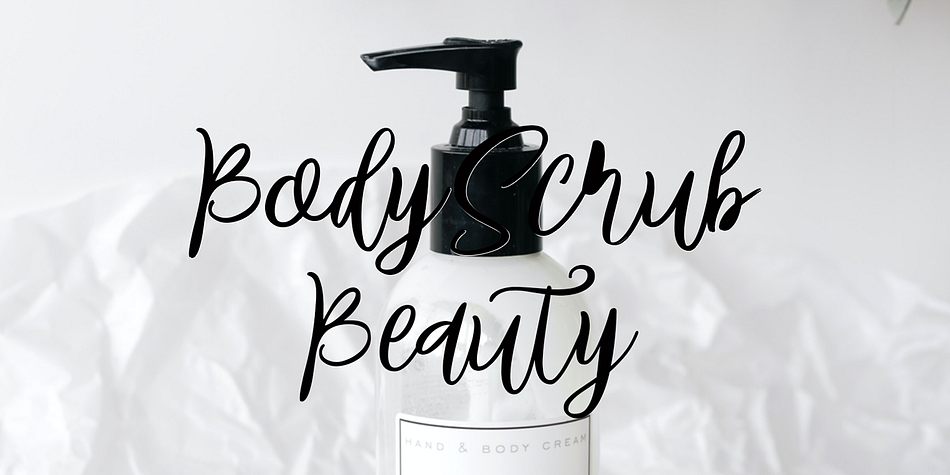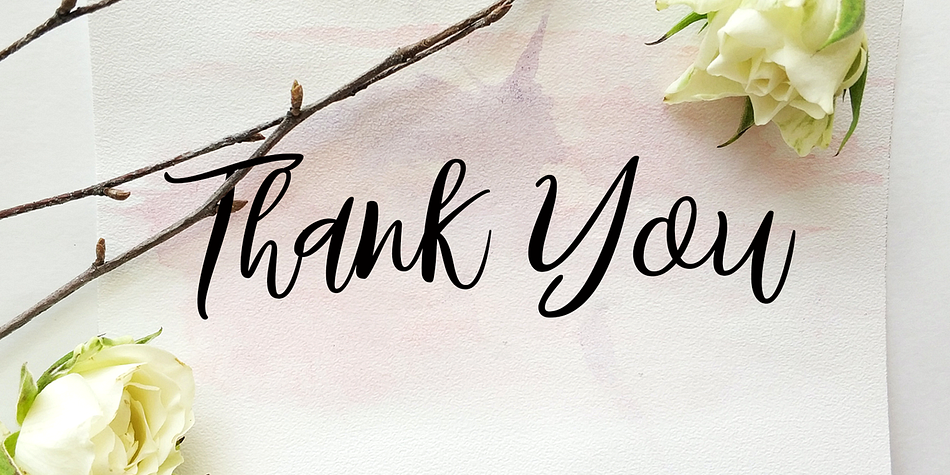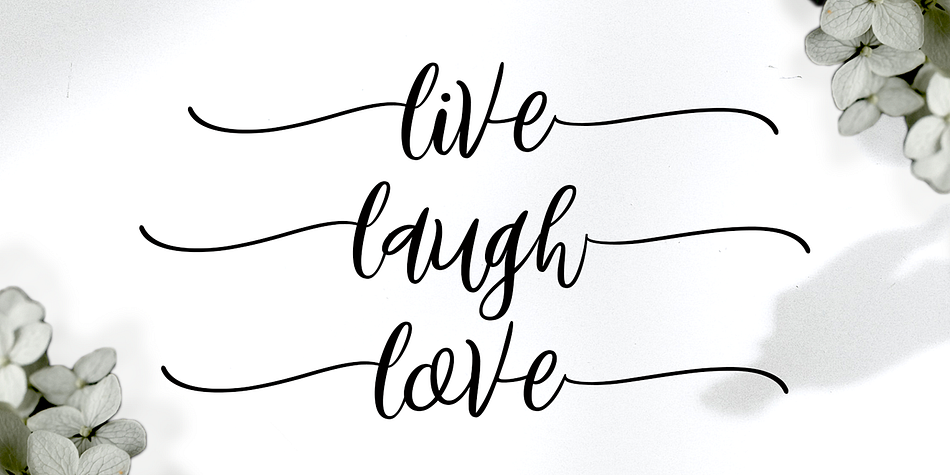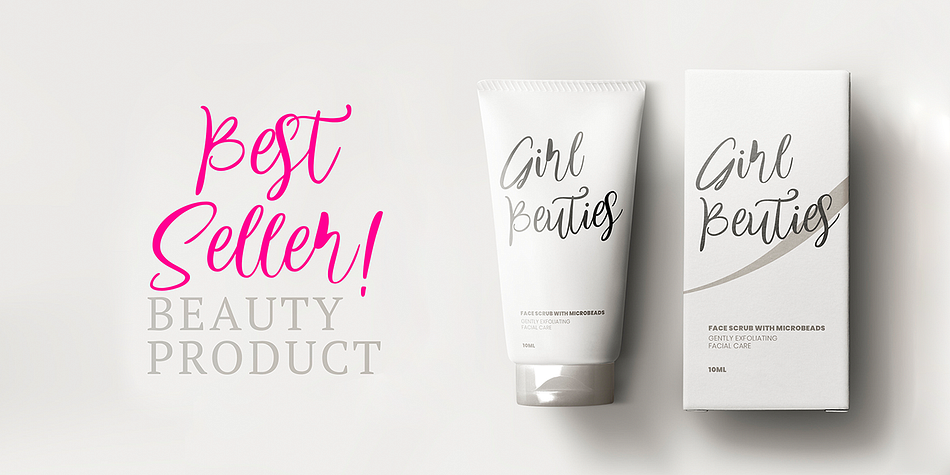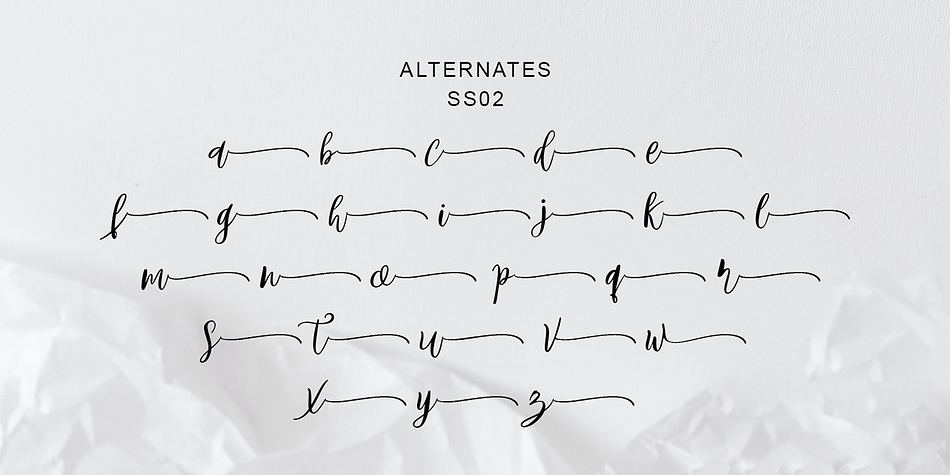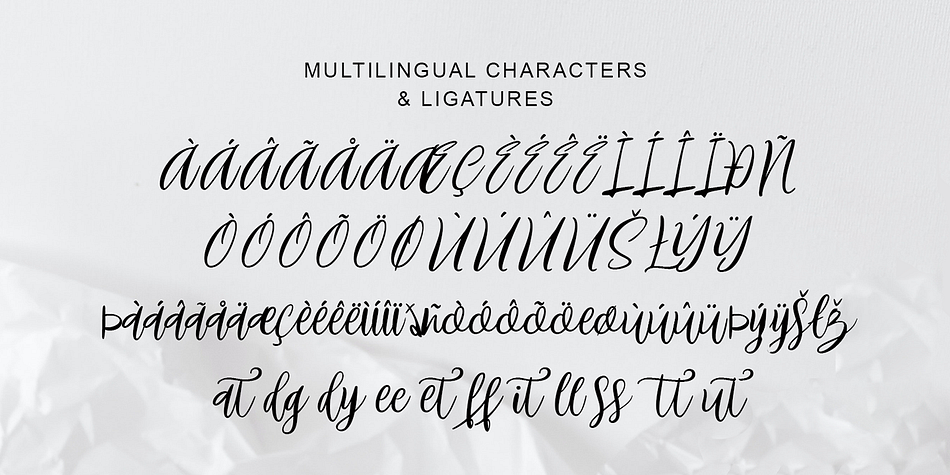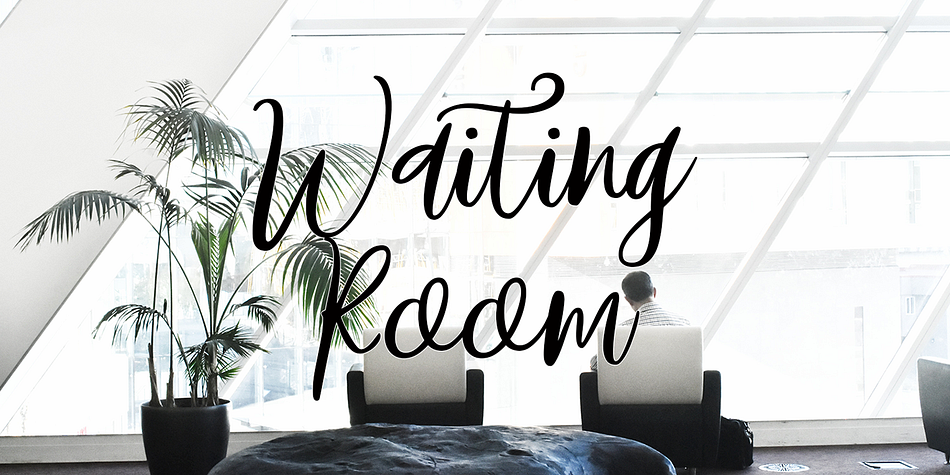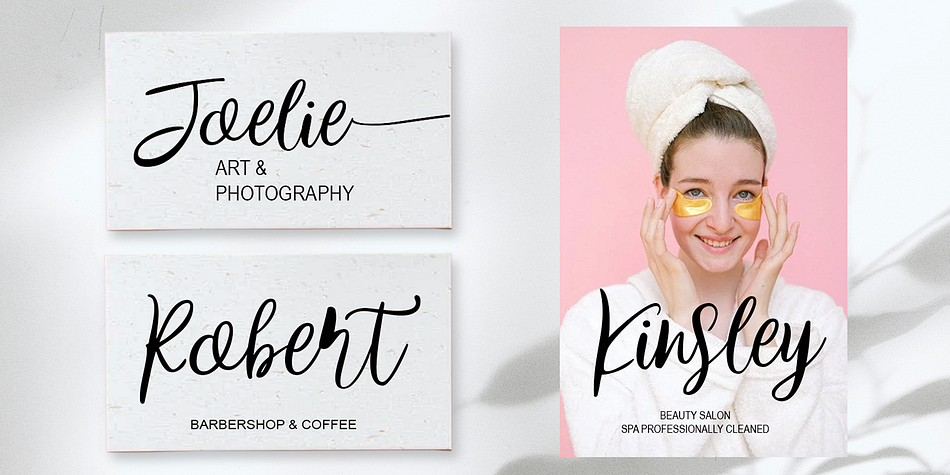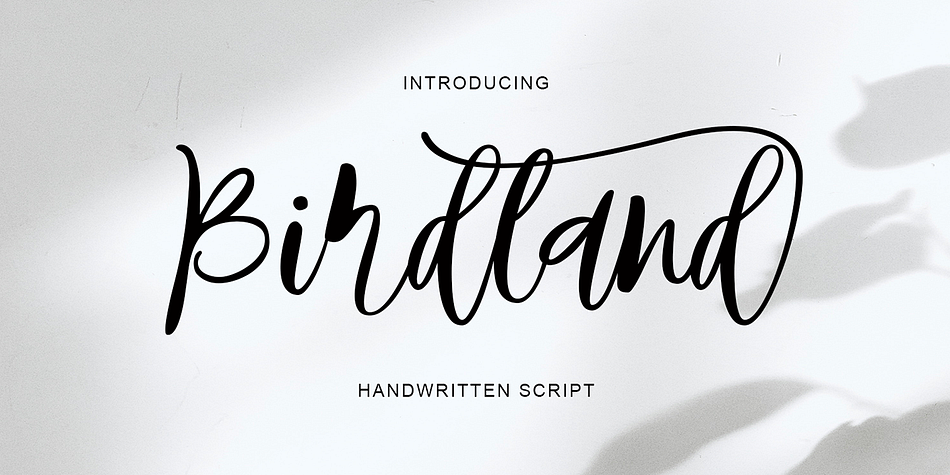
Birdland
Birdland is a modern calligraphy font family published by Gatype.
Birdland is a sweet and romantic handwritten font featuring a unique up and down flow. Use it for wall displays, product packaging, wedding invitations, social media post logos, and any project that requires impressive typography.